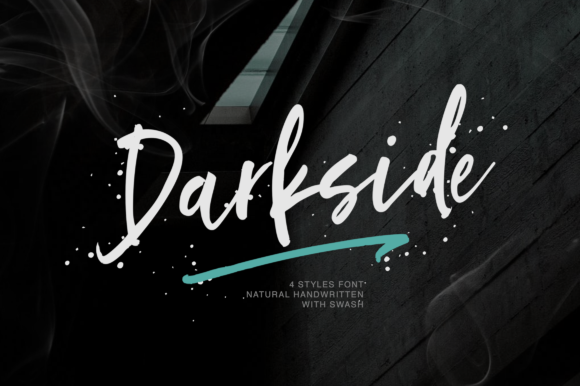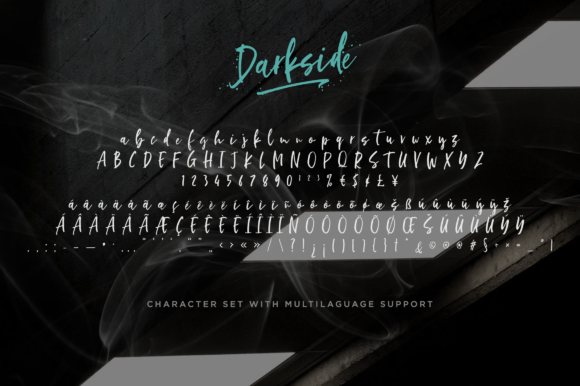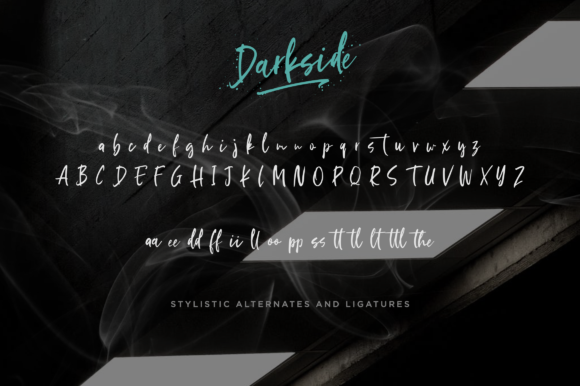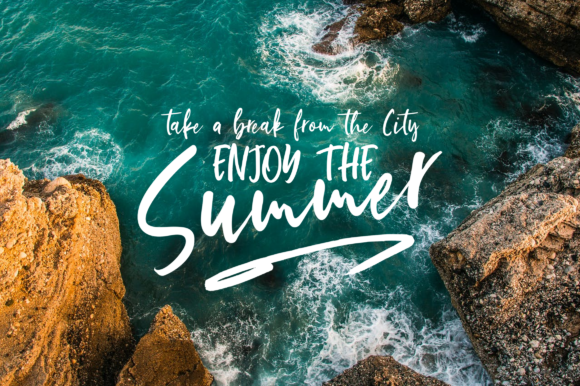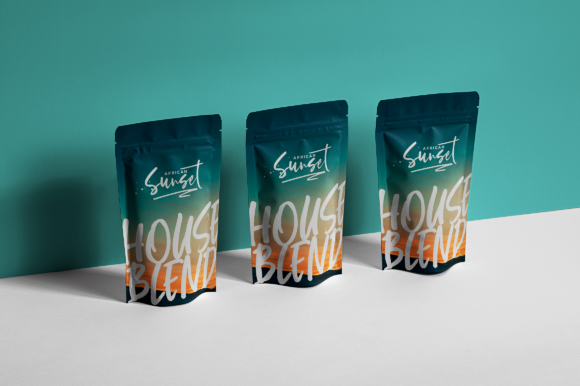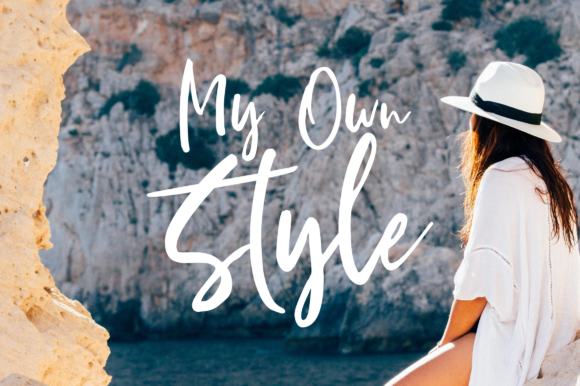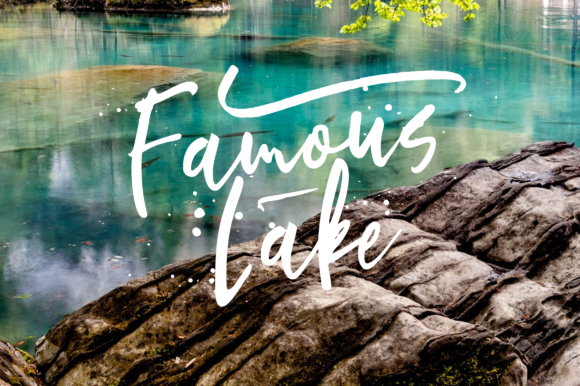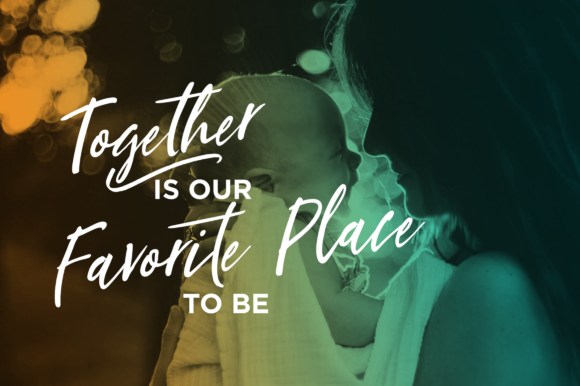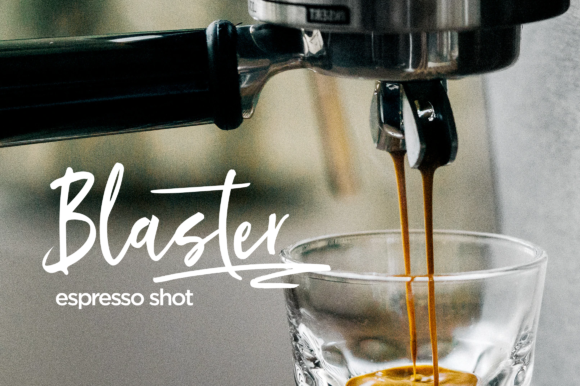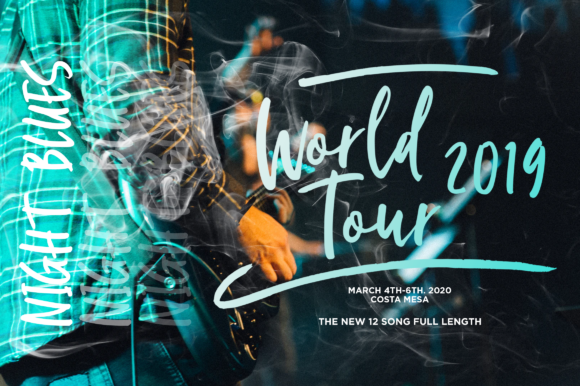
HomeScript FontsDarkside Font Script Fonts Darkside Font FacebookXPinterestWhatsApp Darkside Font Poster 2 Darkside Font Poster 3 Darkside Font Poster 4 Darkside Font Poster 5 Darkside Font Poster 6 Darkside Font Poster 7 Darkside Font Poster 8 Darkside Font Poster 9 Darkside Font Poster 10 Darkside Font Poster 11 Darkside Font Poster 12 About Darkside Font Darkside is a dark and mysterious script with a powerful vibe. Unleash your dark side with this bold script. DOWNLOAD ON CREATIVE FABRICAThis font is sold and delivered by Creative Fabrica. Font Canyon may earn a commission if you buy through this link. People also explored Oh Jamilah Font Jeffjak Font Big Event Font Accurate Font Birrllia Font Primrose Font Abraham Mahmudh Font Manic Monday Font Mistery Latter Font 316 0 TagsDarkside Font Previous articleMilky Cookies FontNext articleRiver Script Font LEAVE A REPLY Cancel reply Comment: Please enter your comment! Name:* Please enter your name here Email:* You have entered an incorrect email address! Please enter your email address here Website: Save my name, email, and website in this browser for the next time I comment. Personal Use Free Edo SZ Personal Use Free Read more about this font Catandra Script Personal Use Free Read more about this font Rasiday Personal Use Free Read more about this font Rakesly Personal Use Free Read more about this font BLOG Transform Your Website: Elevate Your Typography with 7 Best Web Font Generators Are you ready to transform your website's typography from ordinary to extraordinary? Great! Today, we're diving into the world of web font generators, which... Where to Buy American Fonts Online in 2024 How to Install and Use Fonts on Windows, macOS, and Web Projects Free Fonts Risk: Why Free Fonts Can Be Dangerous for Designers